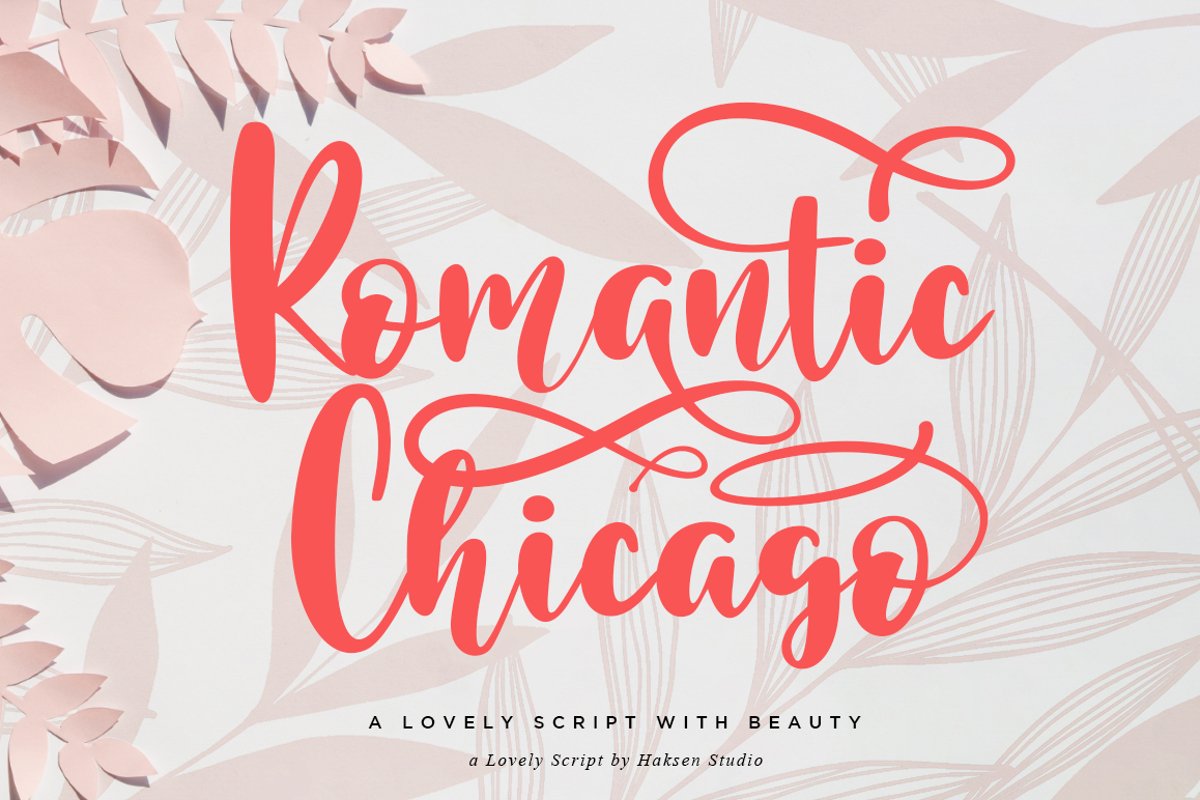
Romantic Chicago a Lovely Handwritten Script
Romantic Chicago
A hand lettered font with modern calligraphy style
• Cute and pretty style with alternates in lowercase